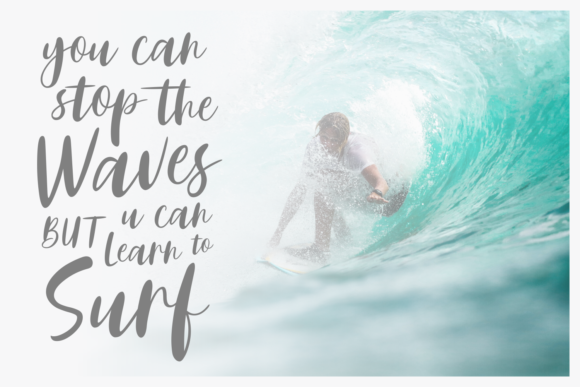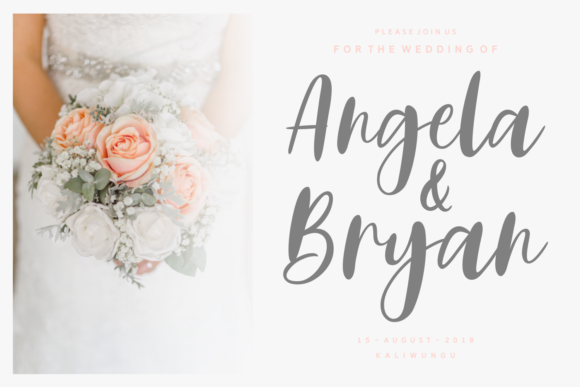
The Quest for the Perfect Font: Discovering Adelio Darmanto
Ah, the eternal struggle of finding the perfect font for a design project! I recall working on a feminine-themed craft project, pouring my heart into the visuals, but feeling like something was off. The font I was using just didn’t capture the sweet, delicate essence I was going for. That’s when I stumbled upon Adelio Darmanto, a fun and sweet-looking script font that instantly elevated my design. In this article, I’ll share my experience with Adelio Darmanto, its features, and how to make the most of this beautiful font.
An Honest Review of Adelio Darmanto
- ✨ Sweet and delicate appearance: Adelio Darmanto adds a touch of elegance and femininity to any design.
- ✅ Perfect for modern designs: This font seamlessly blends traditional script elements with a modern twist, making it ideal for contemporary projects.
- 🎉 Highly versatile: From crafting and DIY projects to professional branding, Adelio Darmanto is a versatile font that adapts to various design needs.
While Adelio Darmanto is an excellent font, there are a few minor considerations to keep in mind:
- ⚠️ Legibility at small sizes: Like many script fonts, Adelio Darmanto may become less legible at very small font sizes. It’s best used at larger sizes (14px and above) for optimal readability.
- 🤔 Overuse of swashes: While the font offers beautiful swashes and stylistic alternates, overusing them can make the text look cluttered. Balance is key.
The Designer Inspiration Behind Adelio Darmanto
While I couldn’t find a direct statement from the designer, it’s clear that Adelio Darmanto was crafted with love and attention to detail. The font’s delicate and sweet appearance suggests a designer who appreciates feminine aesthetics and modern typography. The result is a font that feels both timeless and contemporary.
| Font Name | Adelio Darmanto Font |
| Author | Keithzo (7NTypes) |
Q: What type of projects is Adelio Darmanto best suited for?
A: Adelio Darmanto is perfect for feminine projects, such as crafting, DIY tutorials, and branding for women’s products or services.
Q: How does Adelio Darmanto compare to other script fonts?
A: Adelio Darmanto stands out with its unique blend of delicacy and modernity. While similar to other elegant script fonts, its sweet appearance and versatile design make it a distinct choice.
Q: Is Adelio Darmanto suitable for body text?
A: While beautiful, Adelio Darmanto is best used for headings and short paragraphs due to its script nature. For longer body text, a more traditional font may be more readable.